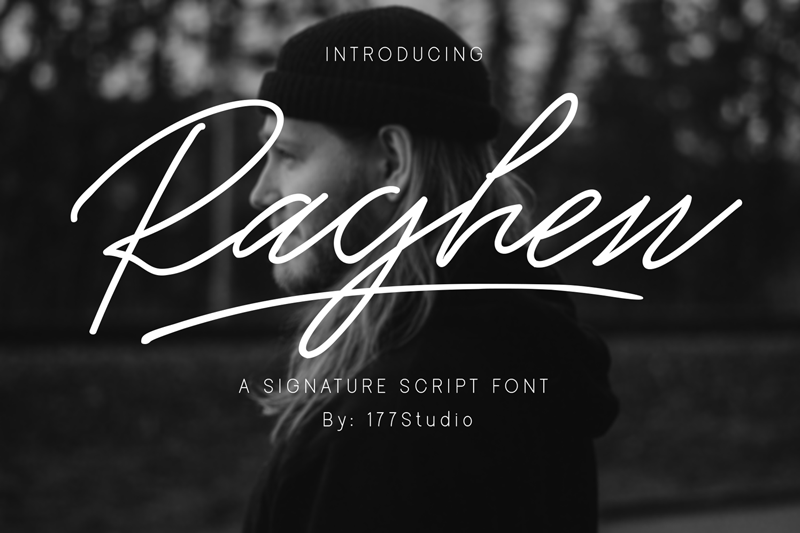
Font name: | Raghen Script |
Introducing Raghen Script Font. It�s a Modern Script Font with Handwritten Style. The font was created with authentic handwritting pen. It�s signature monoline font. Clean and elegant, cursive, legible script font which can be used on a wide variety of designs such as: headlines, titles, headings, logos, branding, posters, invitations, books, and any other creative design. You can buy full license from our store for more our fonts: https://gumroad.com/177studio if you have any problem, let we know by email: admin@177studio.com |